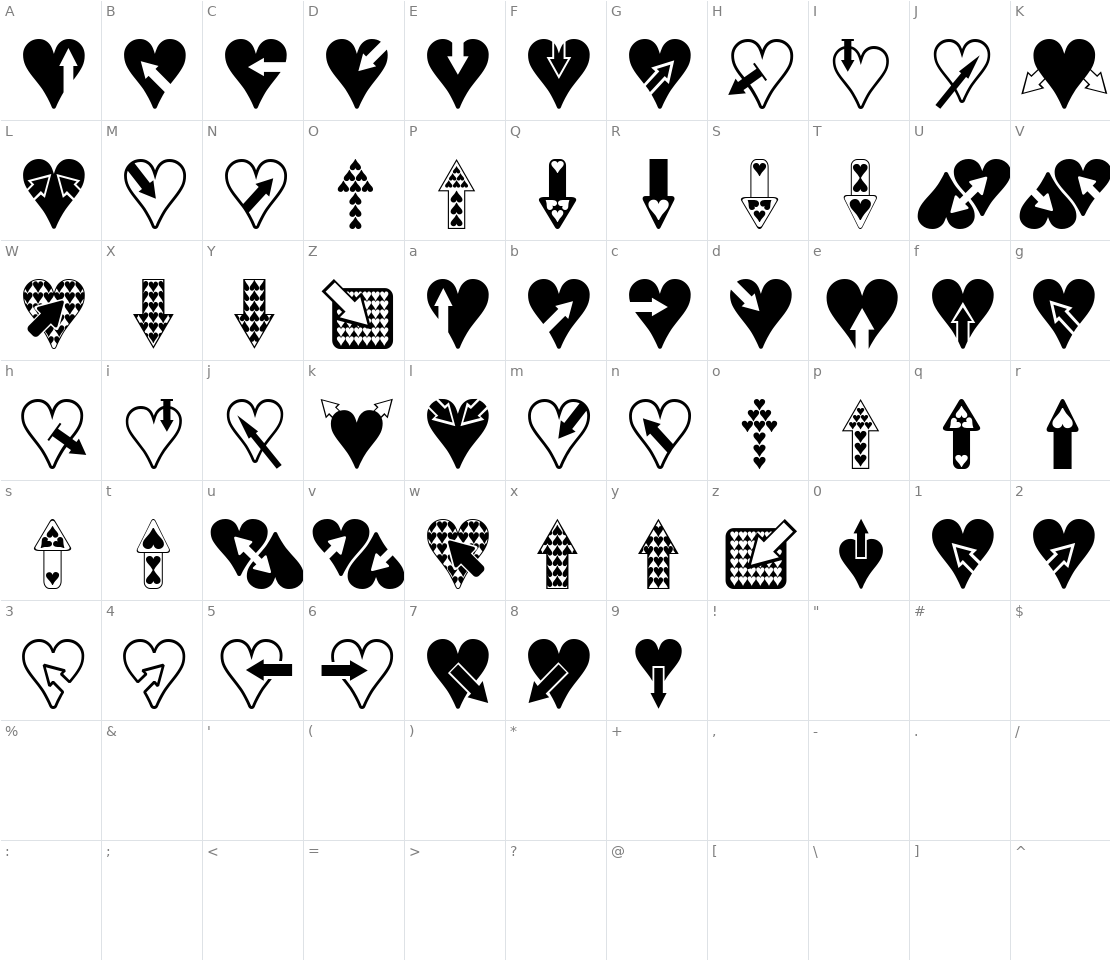
Hearts n Arrows
Hearts n Arrows is a dingbats font from Fonts & Things built entirely around heart and arrow symbols, the kind of decorative icons you reach for around Valentine's Day or anywhere romance is the theme. It's not a text face at all, just a collection of love-themed shapes and ornaments useful for invitations, greeting cards, borders, and similar accent work.